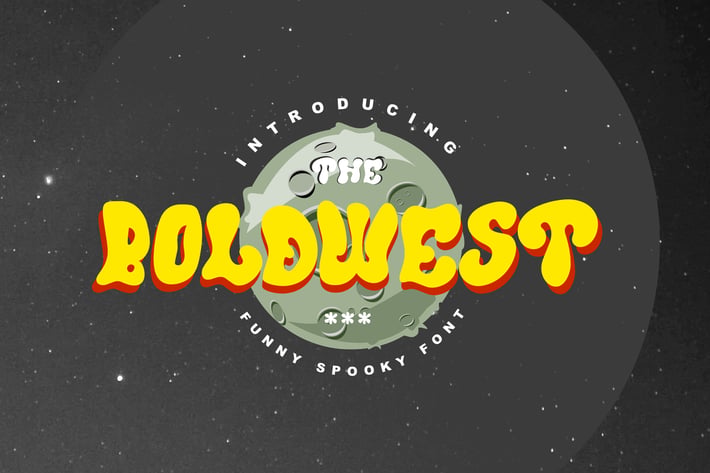
Boldwest Font
Boldwest is Funny Creepy Spooky Font.
It suitable for branding, crafting quote, t-shirt, poster, packaging, book cover, display design, cards, invitation and any cute and funny typeface needs and more.